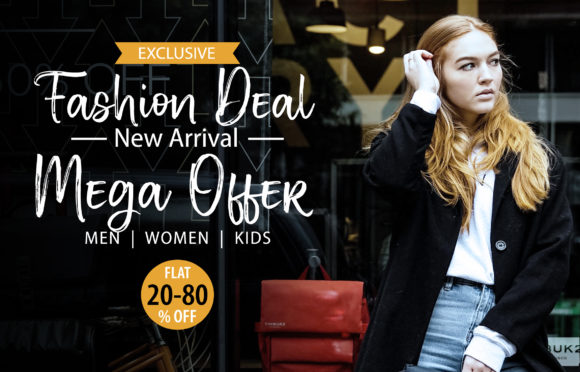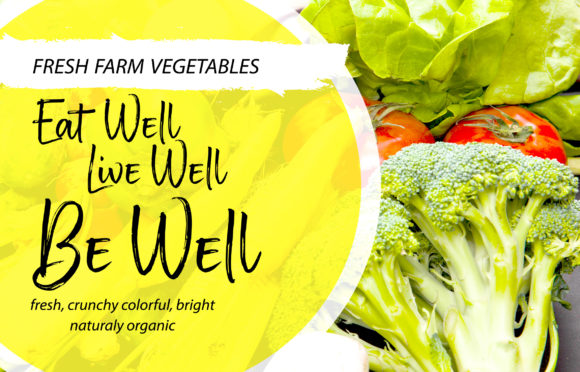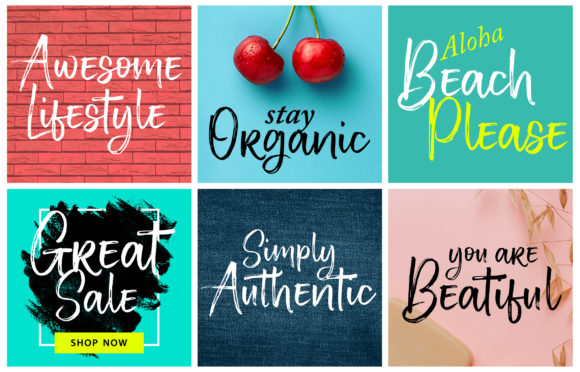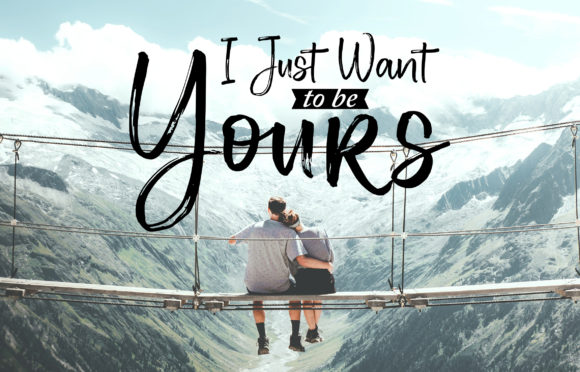
Soulist Font
About Soulist Font
Ouvality is a playful handwritten font which will look beautiful your next projects such as invitations, greeting cards, branding materials, quotes, posters, and more.
Give your next designs charm and character with this lovely font.